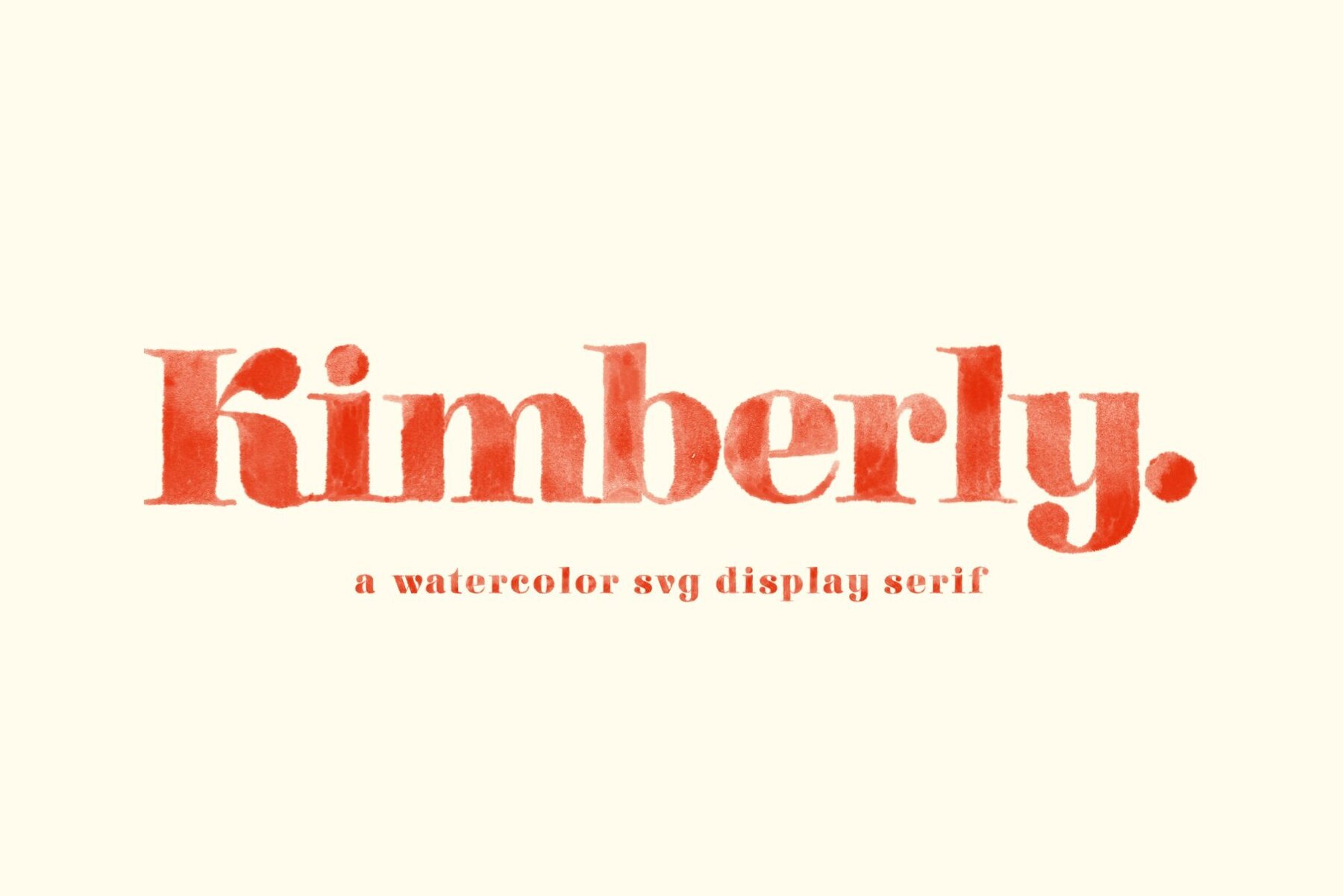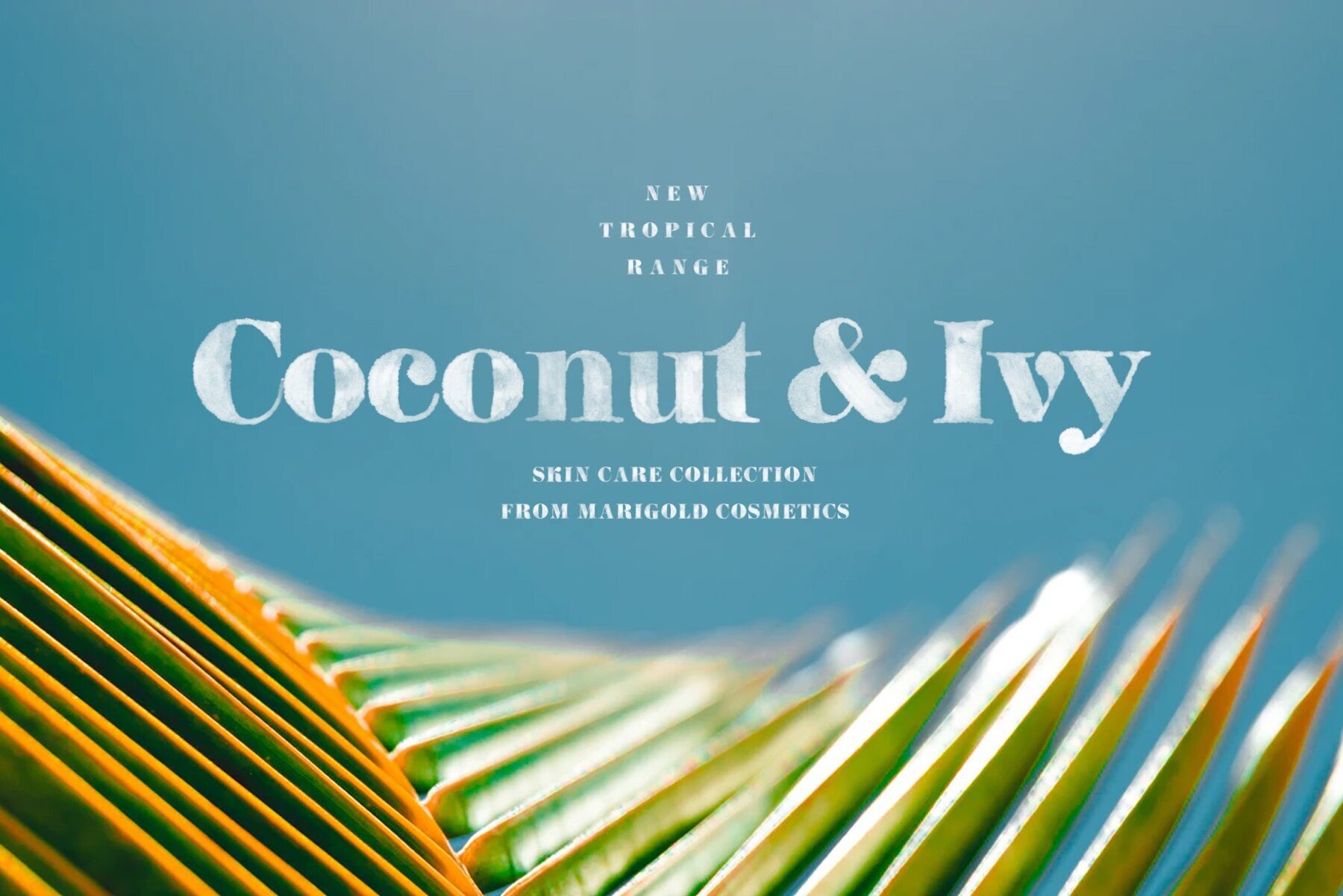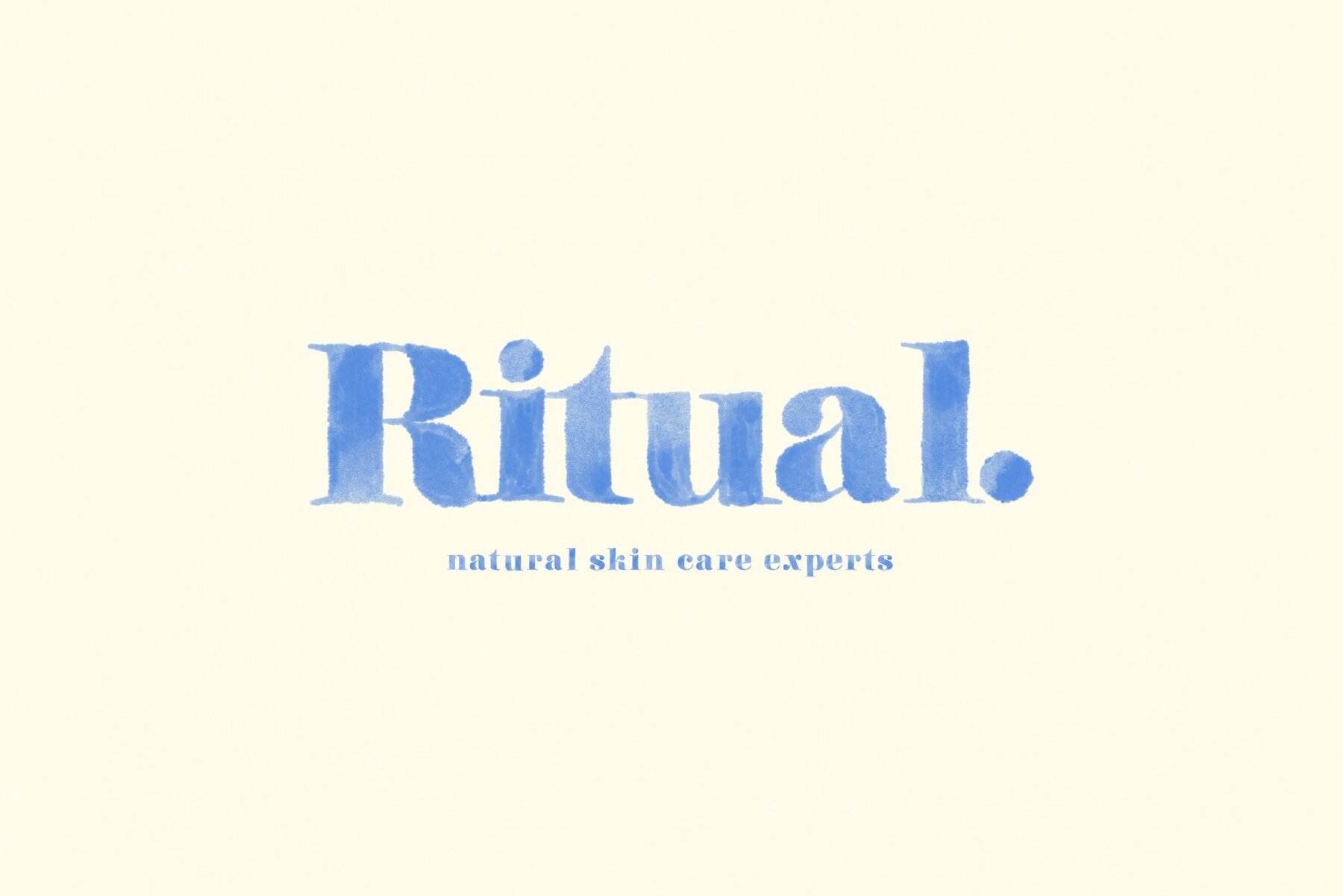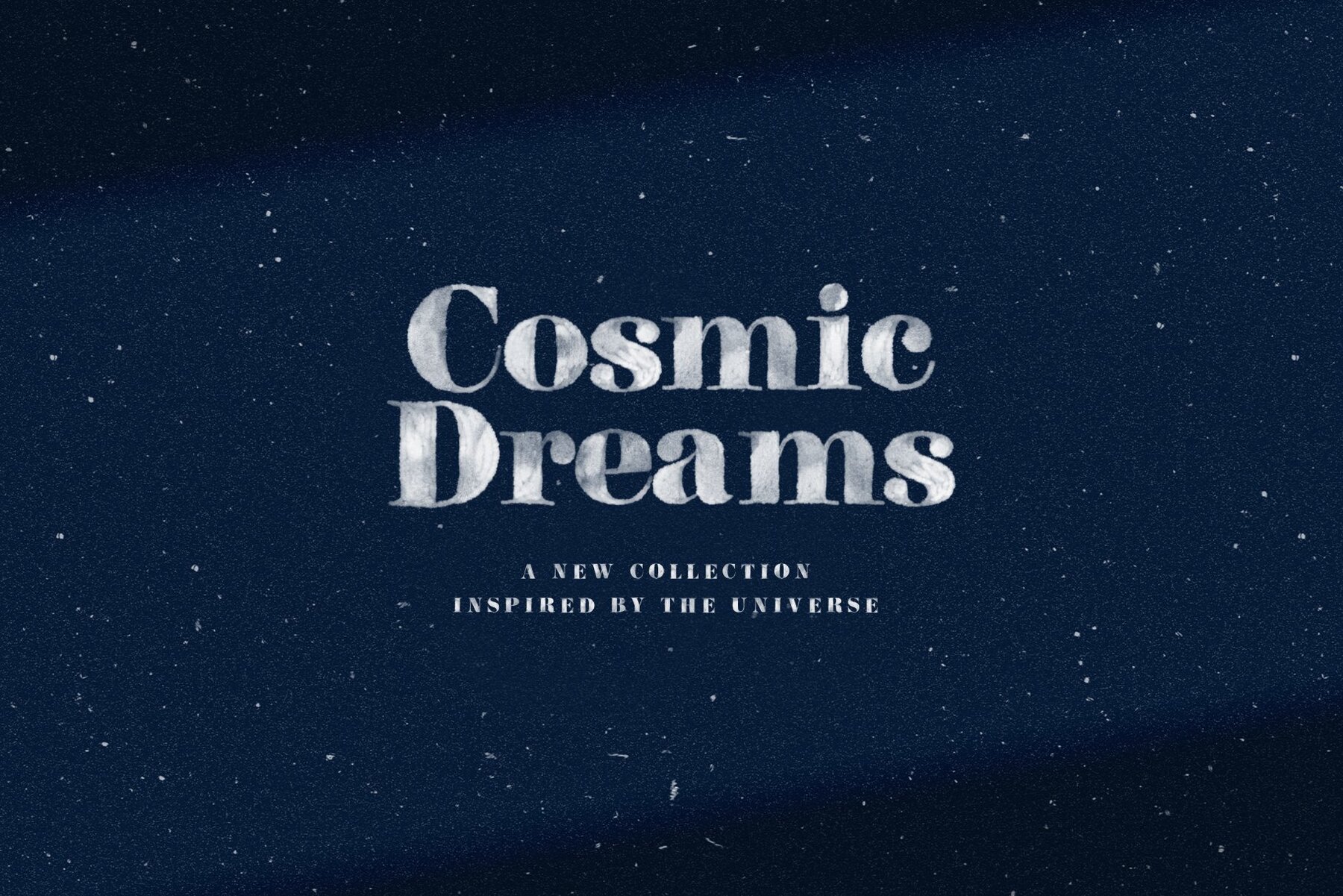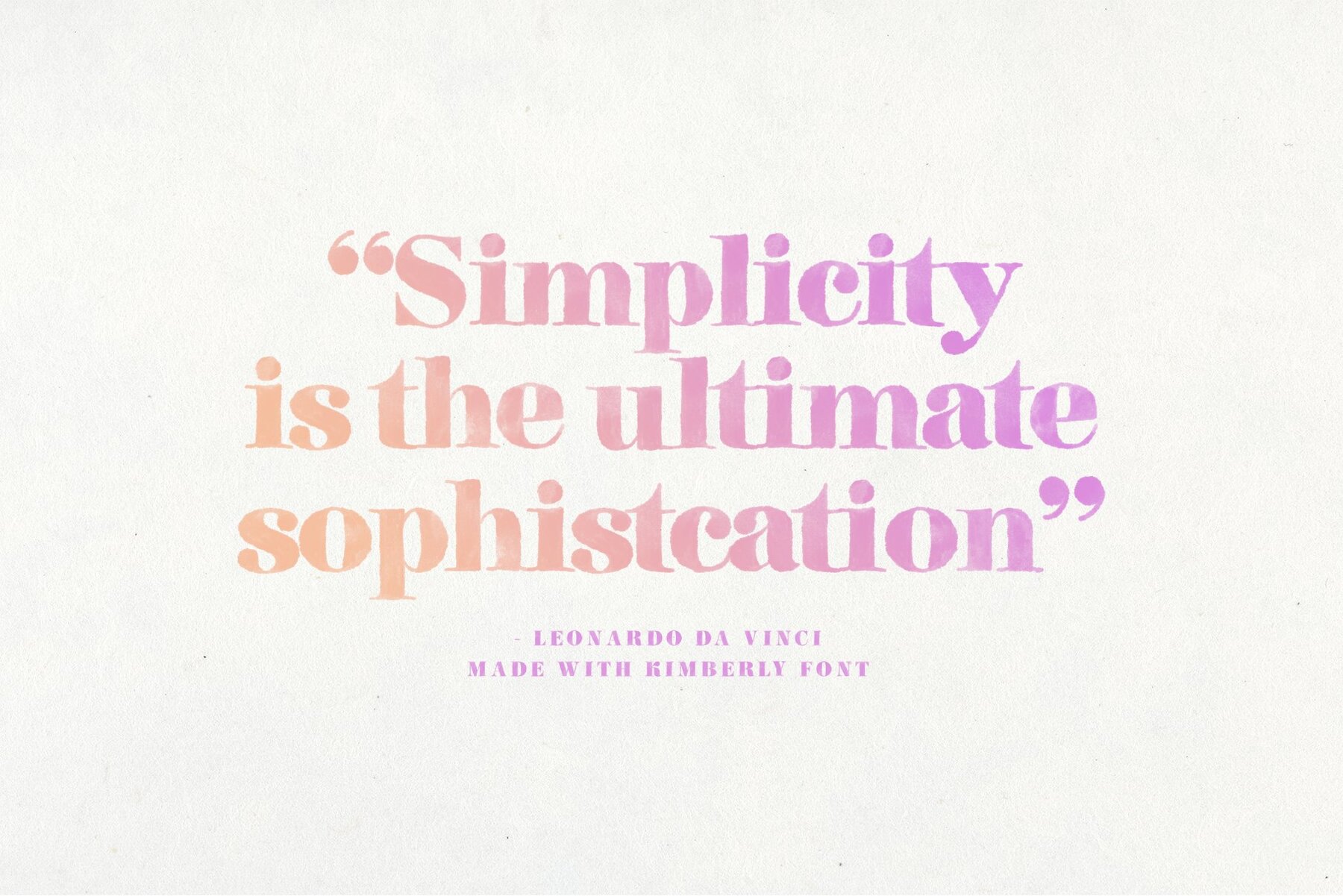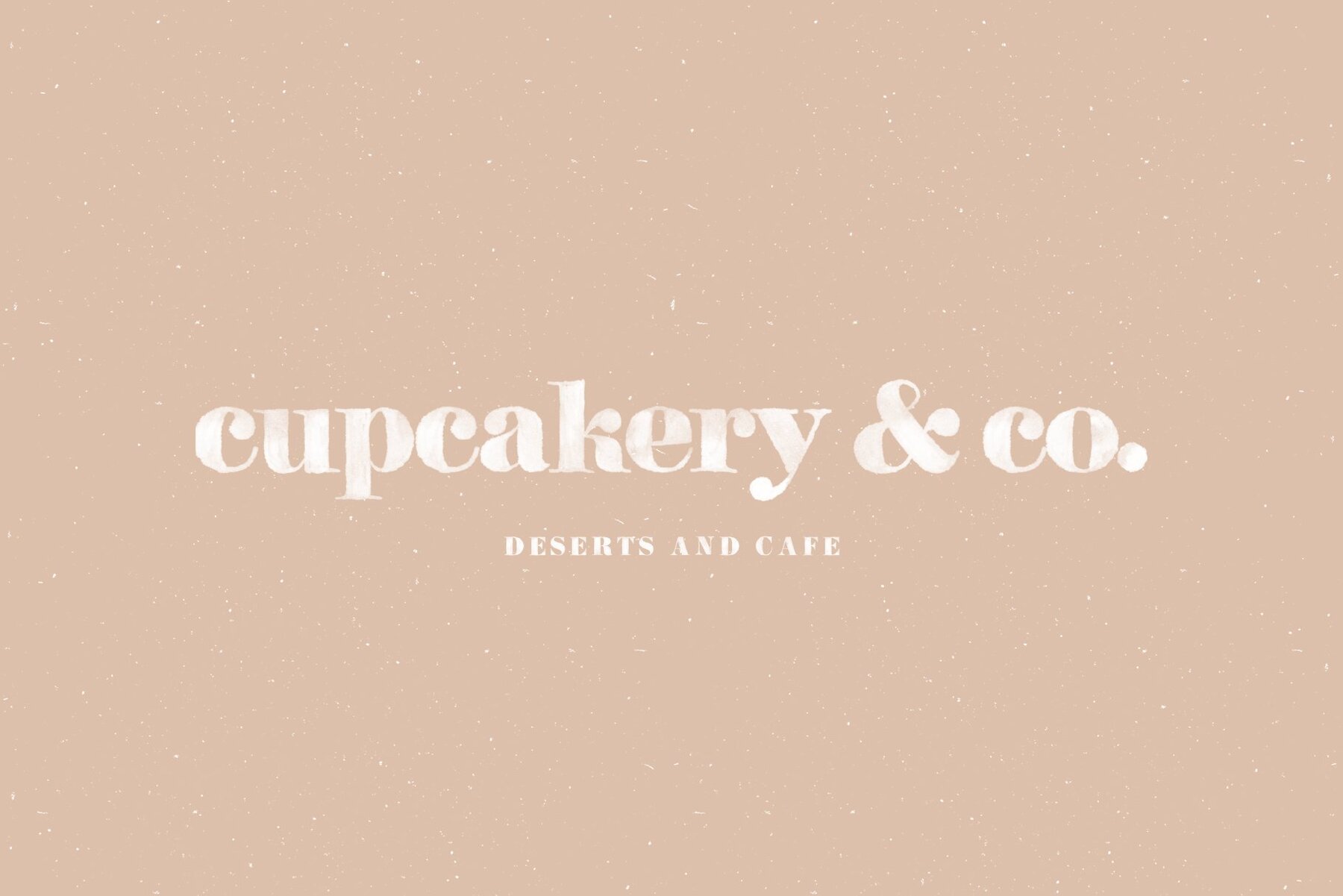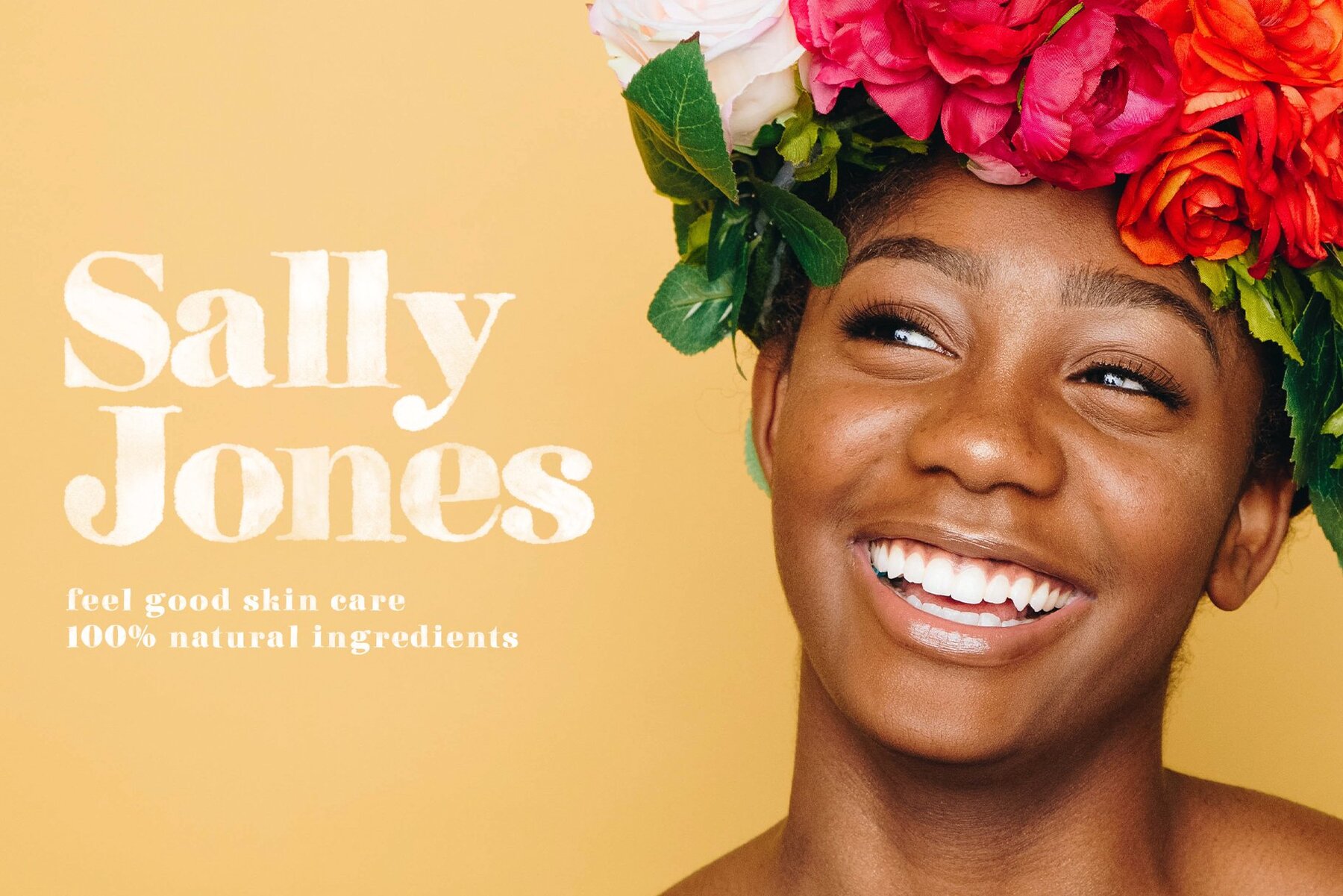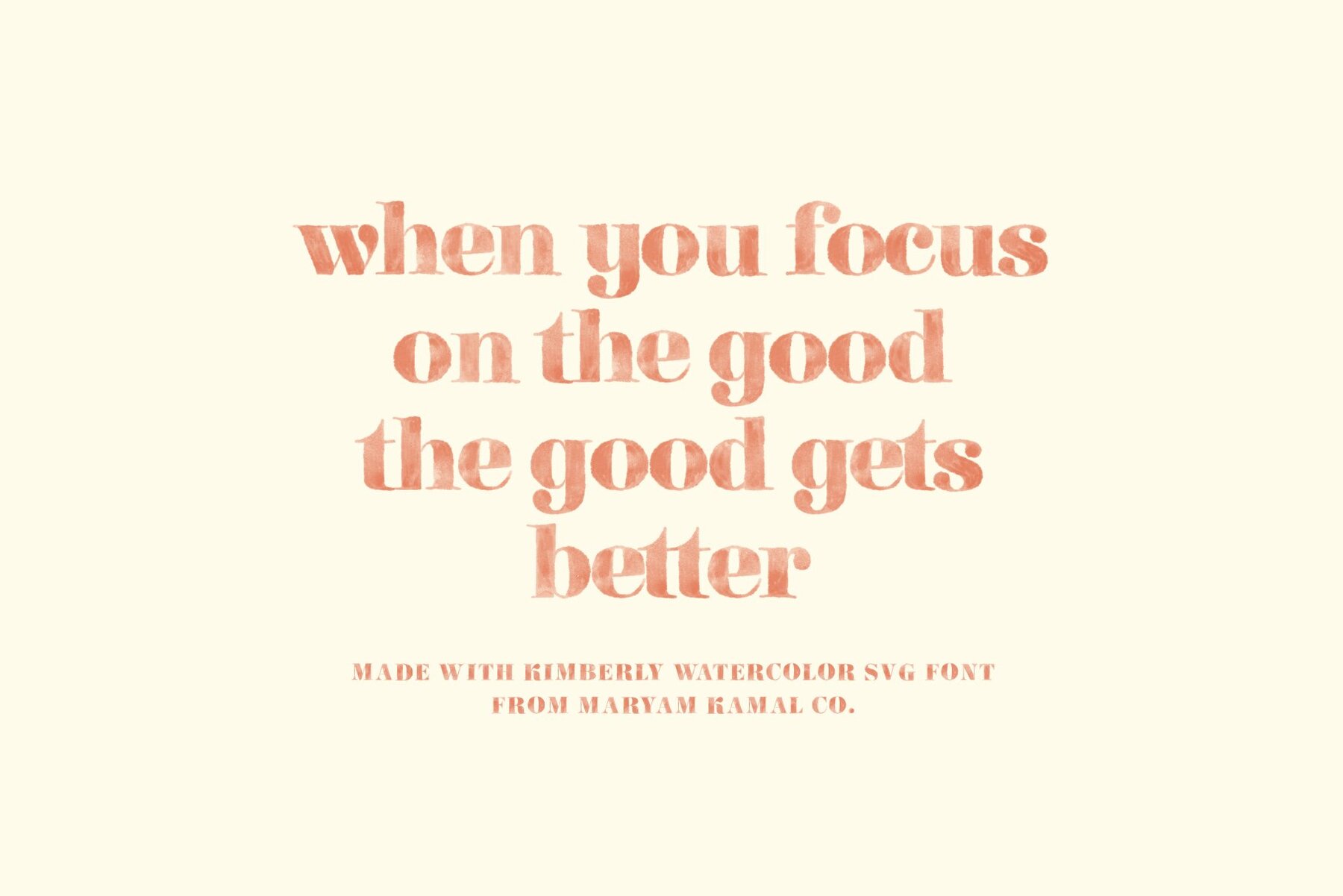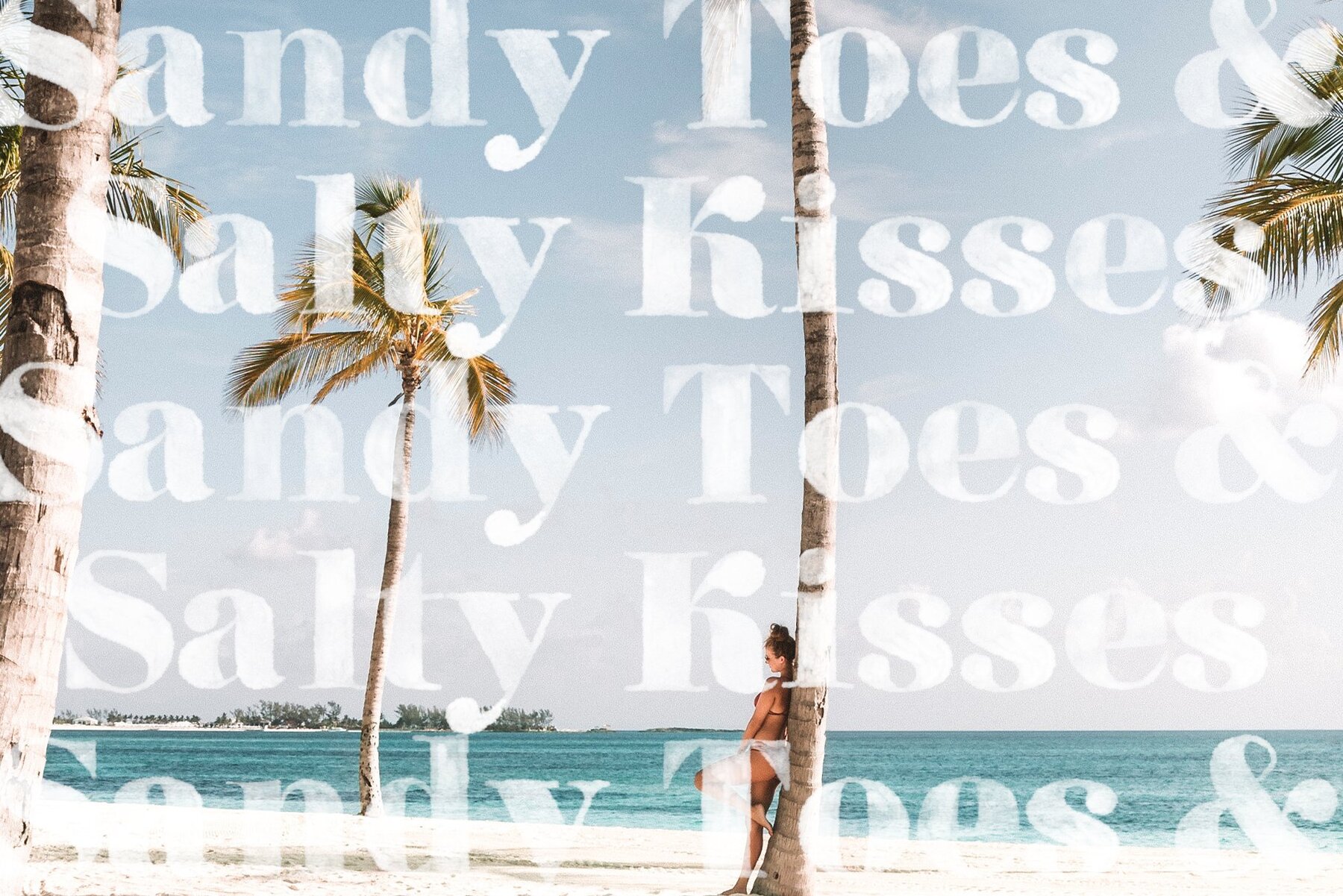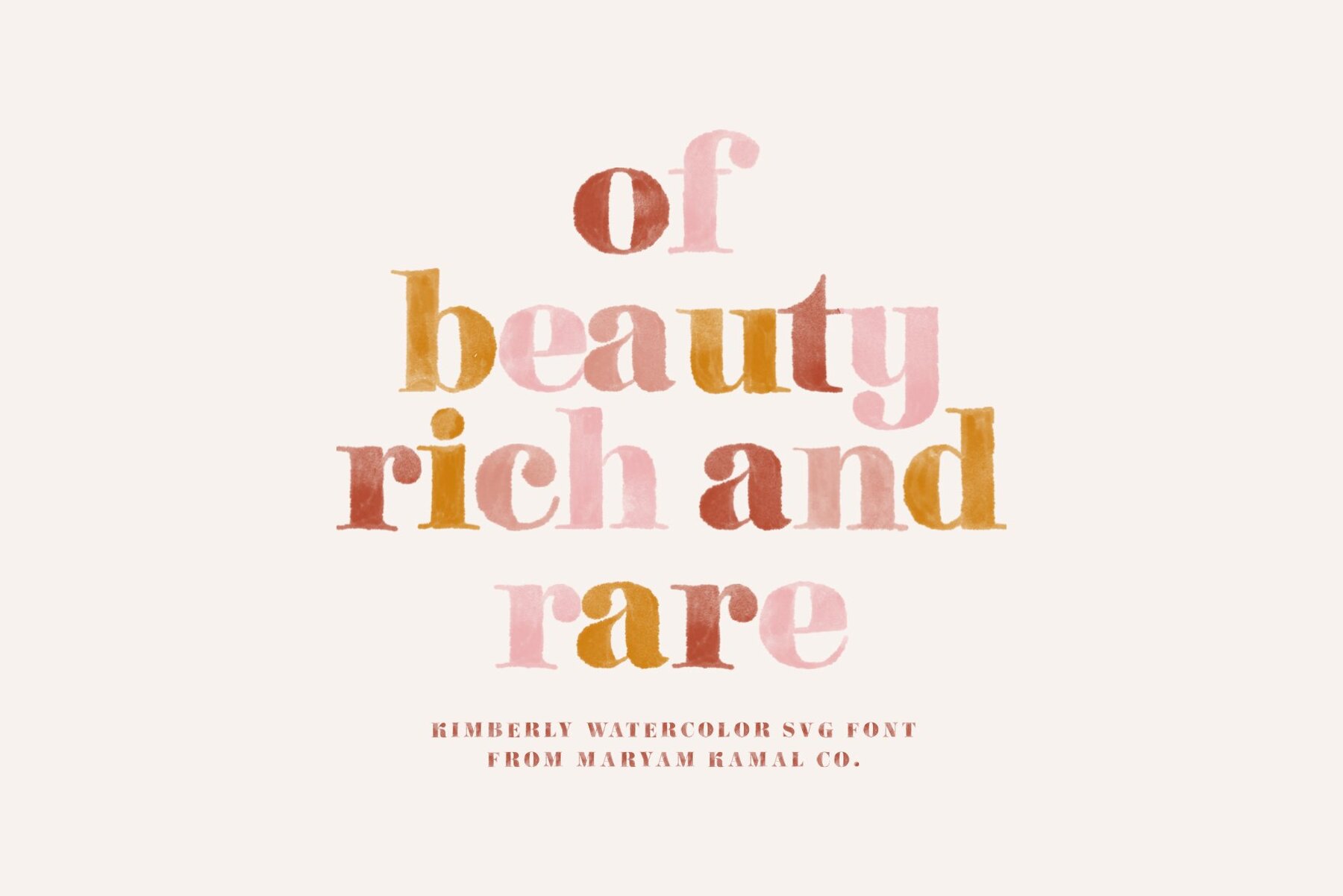
Kimberly Watercolor SVG Font
Kimberly is a distinctive watercolor display serif inspired by the didone typeface, offering an artistic touch with its hand-painted style and strong contrasts. It presents a perfect blend of modernity and femininity. Kimberly includes an extensive range of special characters to accommodate various languages, enhancing its versatility and usability worldwide. SVG fonts, being a newer technology, are compatible with Photoshop CC 2017 (or newer) and Illustrator CC 2018 (or newer). The regular font versions are broadly supported across most applications.Kimberly Watercolor SVG: Classic Watercolor Display Serif